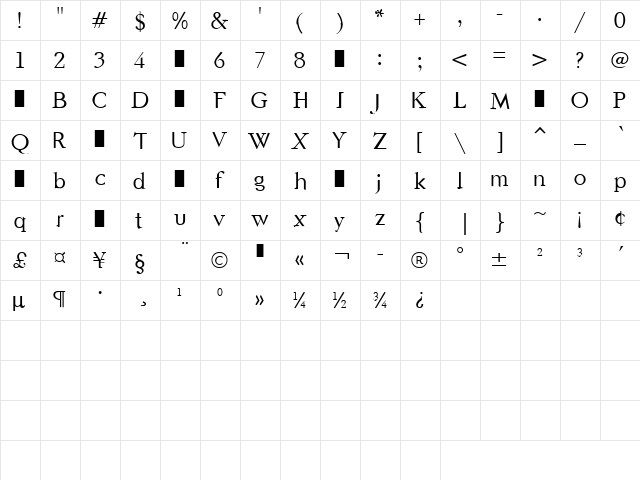
ElixirDemo Normal
Design Context for ElixirDemo Typeface
ElixirDemo is a composed and adaptable typeface that performs quietly and consistently across a wide range of design contexts.